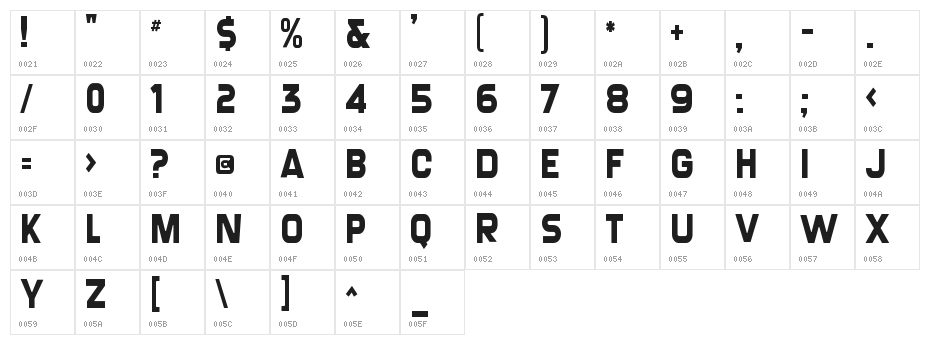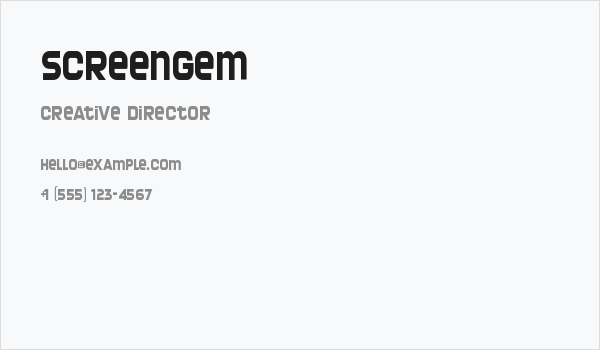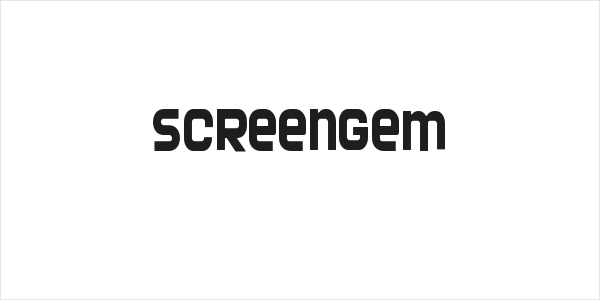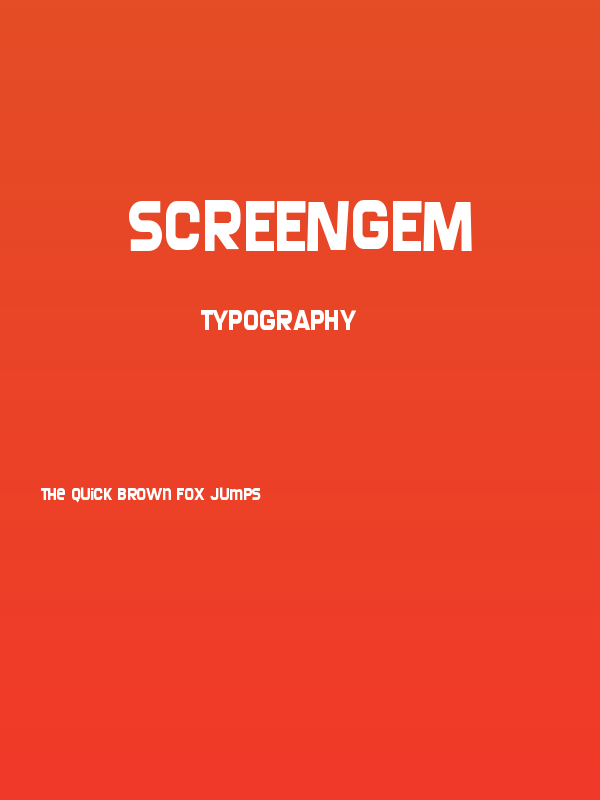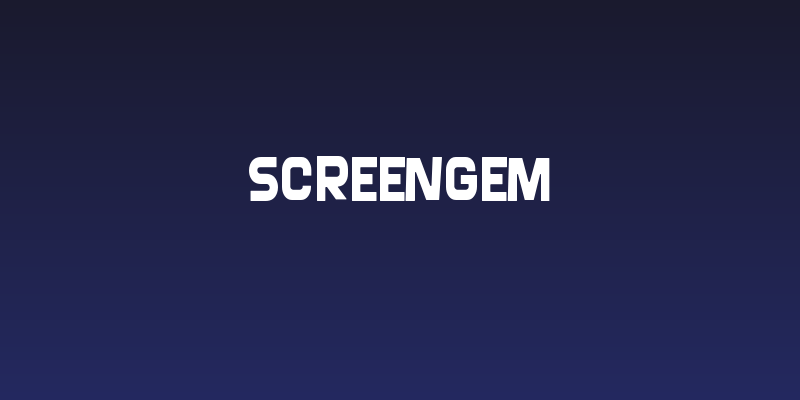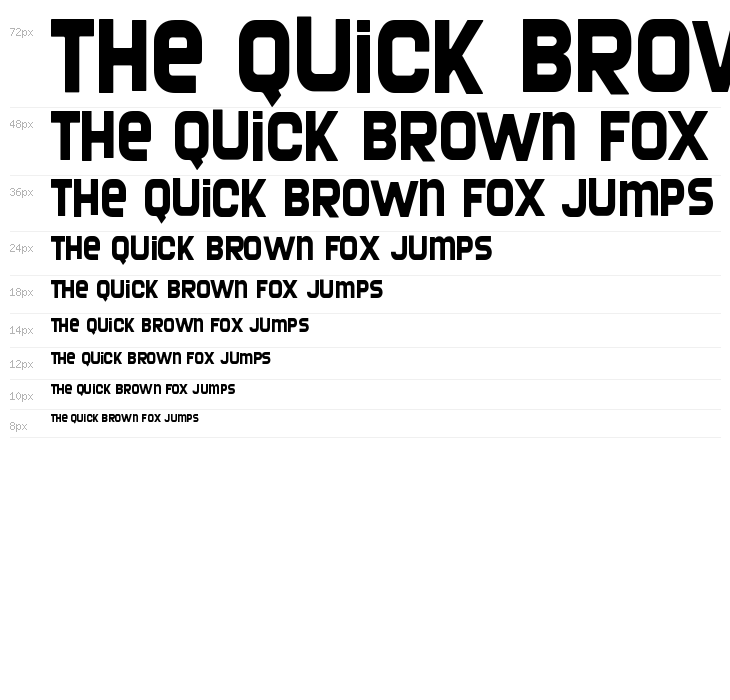
Screengem Font
Screengem Description
This font features a bold, geometric style with strong, angular lines and a modern aesthetic. The uppercase and lowercase letters maintain a consistent height, giving it a uniform appearance. The numerals are equally bold, with a distinct, blocky design that complements the alphabetic characters. Special characters are crafted with the same attention to detail, ensuring they fit seamlessly within the overall design. The font's robust and assertive nature makes it ideal for attention-grabbing headlines and impactful designs.